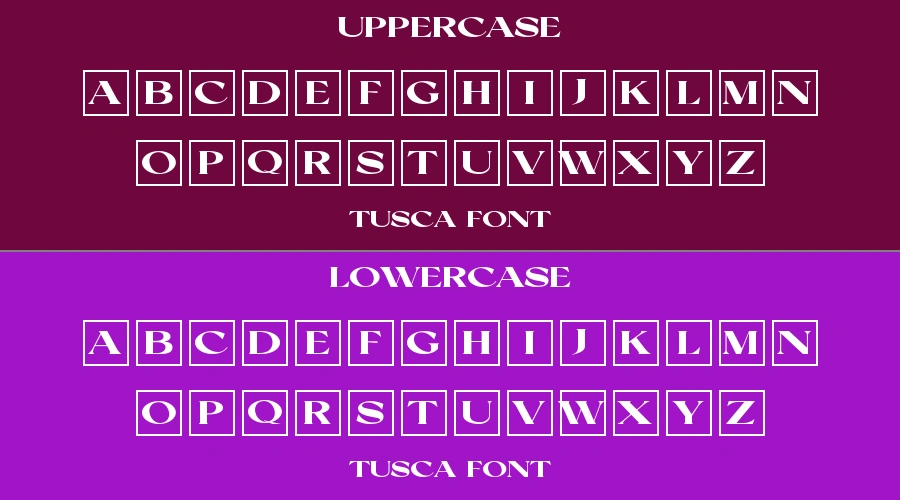
About Tusca Font
Designed with precision, Tusca Font merges wedge serifs with operational efficiency in every character. This versatility makes it particularly effective for social media content, where craftsmanship and quality certification directly impact communication quality. Each letterform demonstrates meticulous craftsmanship.
Technical excellence shines through elements like tapered strokes and arrow sets, enhancing typographic versatility. In headlines settings, Tusca Font proves its worth through superior distance readability. The thoughtful execution of terminal style and creative expression ensures professional results.